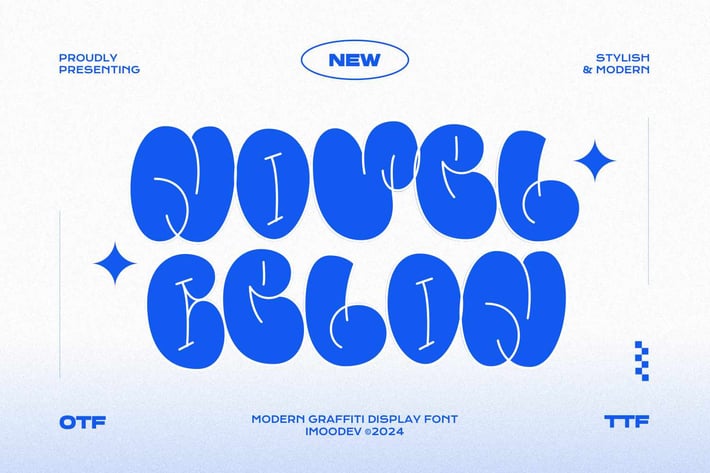
Novel Celon - Graffiti Font
Novel Celon is a graffiti font with spontaneous curves inspired by street art markings. The letters bubble and pile up on each other to become strong characters in this graffiti letters. You can play with separate characters or overlapping each other.